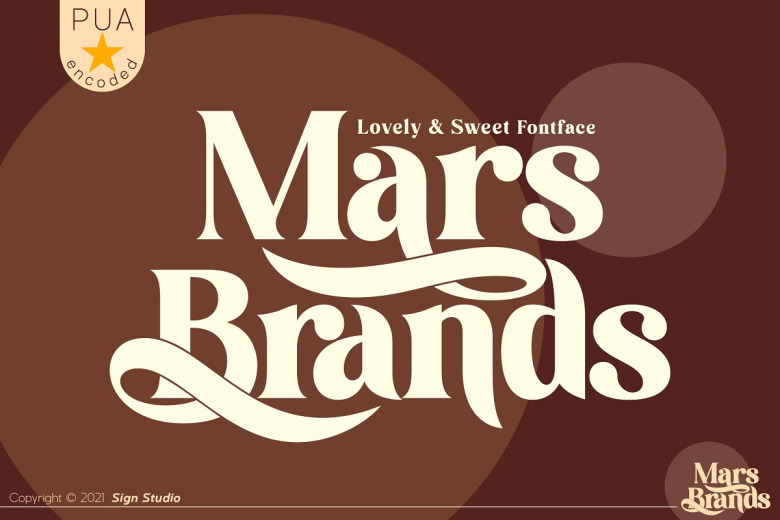
Mars Brands Font
Mars Brands is a gorgeous, light serif font designed to appear romantic and lovable. It has many ligatures in it along with alternative characters from uppercase to lowercase, and so on. Mars Brands is suitable for greeting cards, wedding invitations, posters, logotypes and many more.
Mars Brands Serif Font